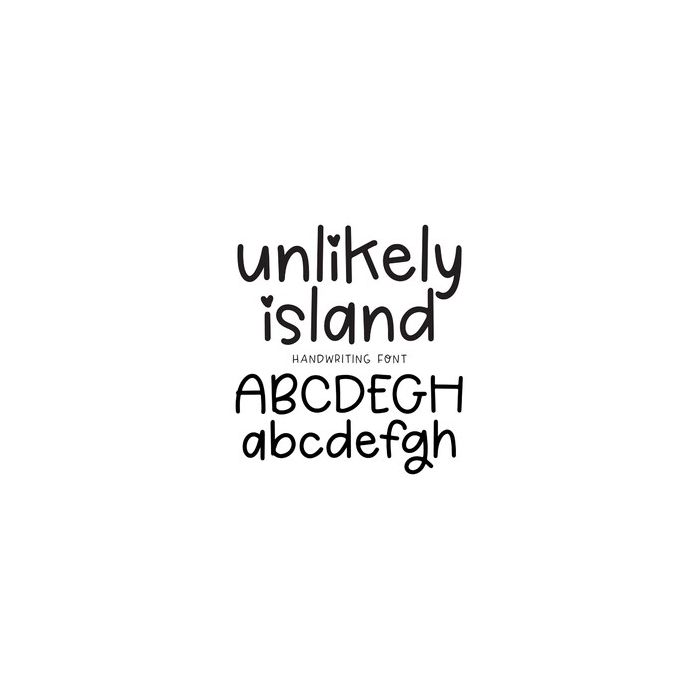
BFC Unlikely Island Cute Quirky Goodnotes Handwriting Font
Unlikely Island is a cute and feminine handwriting font. It is perfect for goodnotes and digital planners.